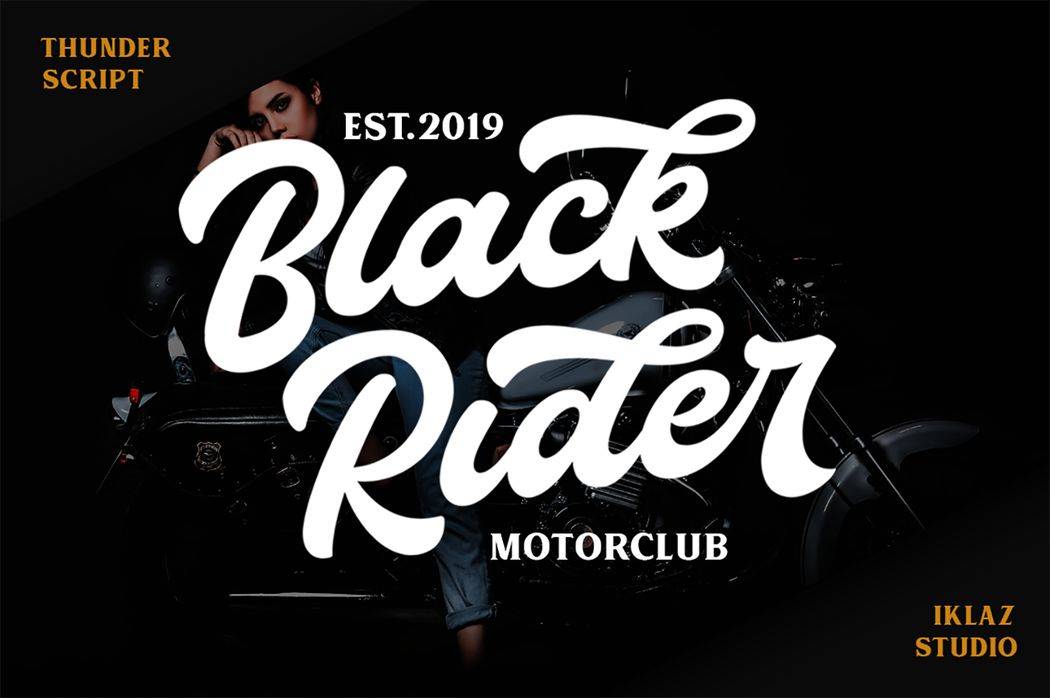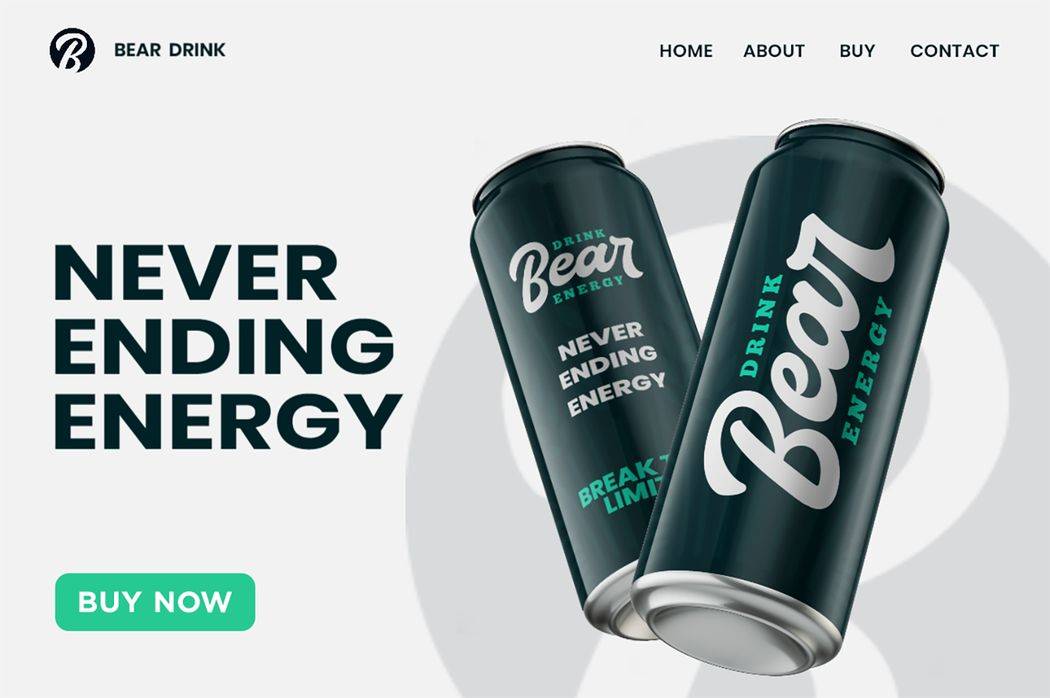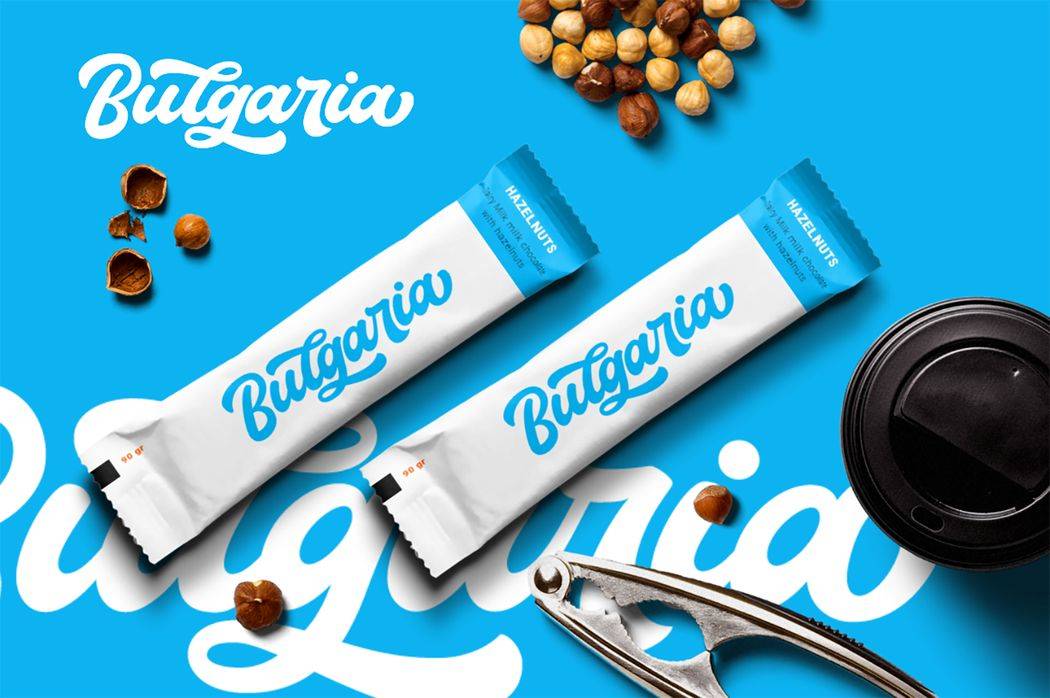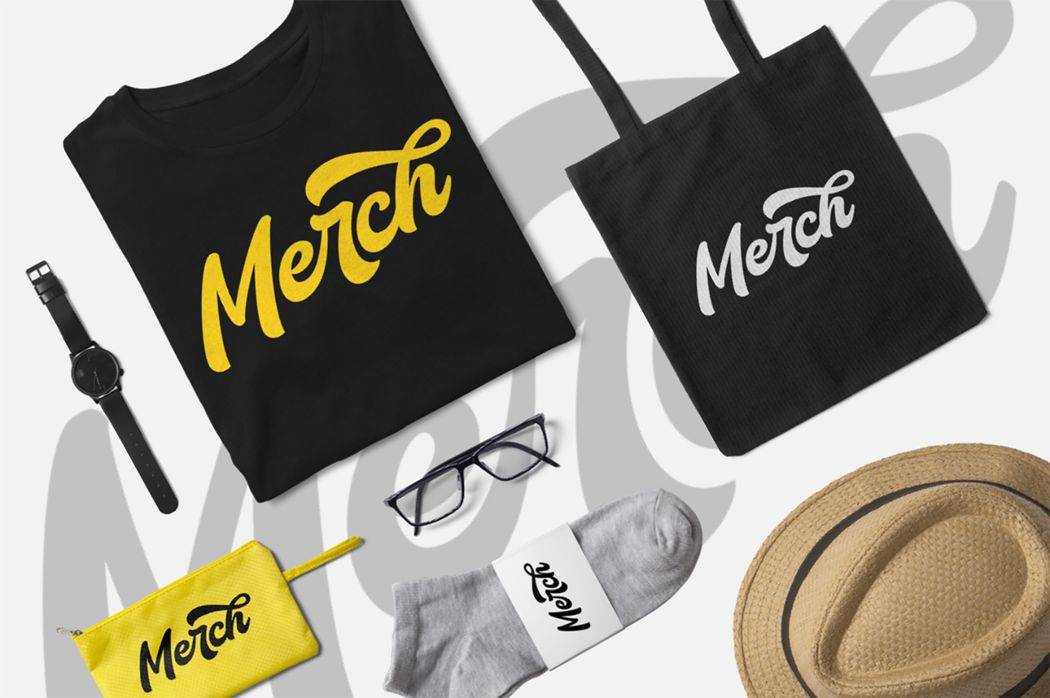
Thunder Font is a bold and lively script typeface with a smooth, flowing style that evokes energy and friendliness. Its rounded strokes and slightly condensed letterforms give it a dynamic, modern feel, making it perfect for eye-catching headlines, logos, and branding that want to convey a sense of creativity and approachability. This font works especially well in playful or casual contexts where a strong yet inviting personality is desired.
Thunder Font
About Thunder Font
| Font family | Thunder Font |
| Designer | Salman Mashudi |